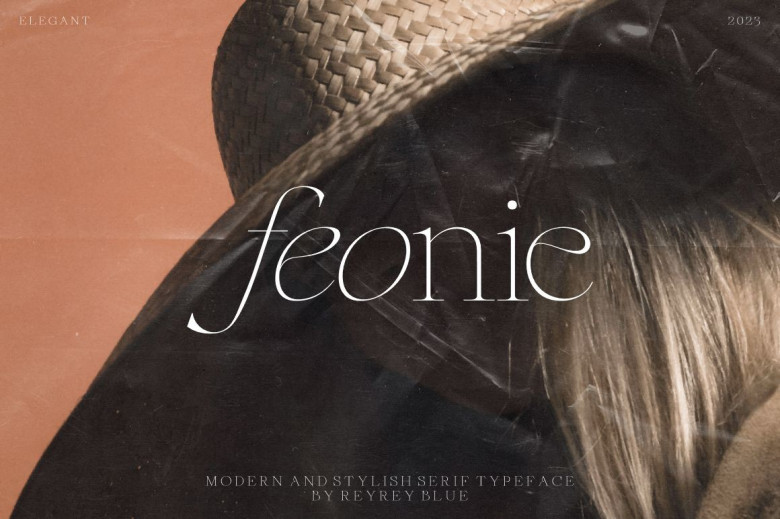
Feonie Font
Feonie is a classic and slightly curved serif typeface. This Serif contains both regular and italic versions. They are genteel with that perfect combination. Feonie marries soft curves with a high-contrast font that is ideal for elegant logos, fashion mastheads & editorial design. It also offers multilingual support.
Feonie Serif Font